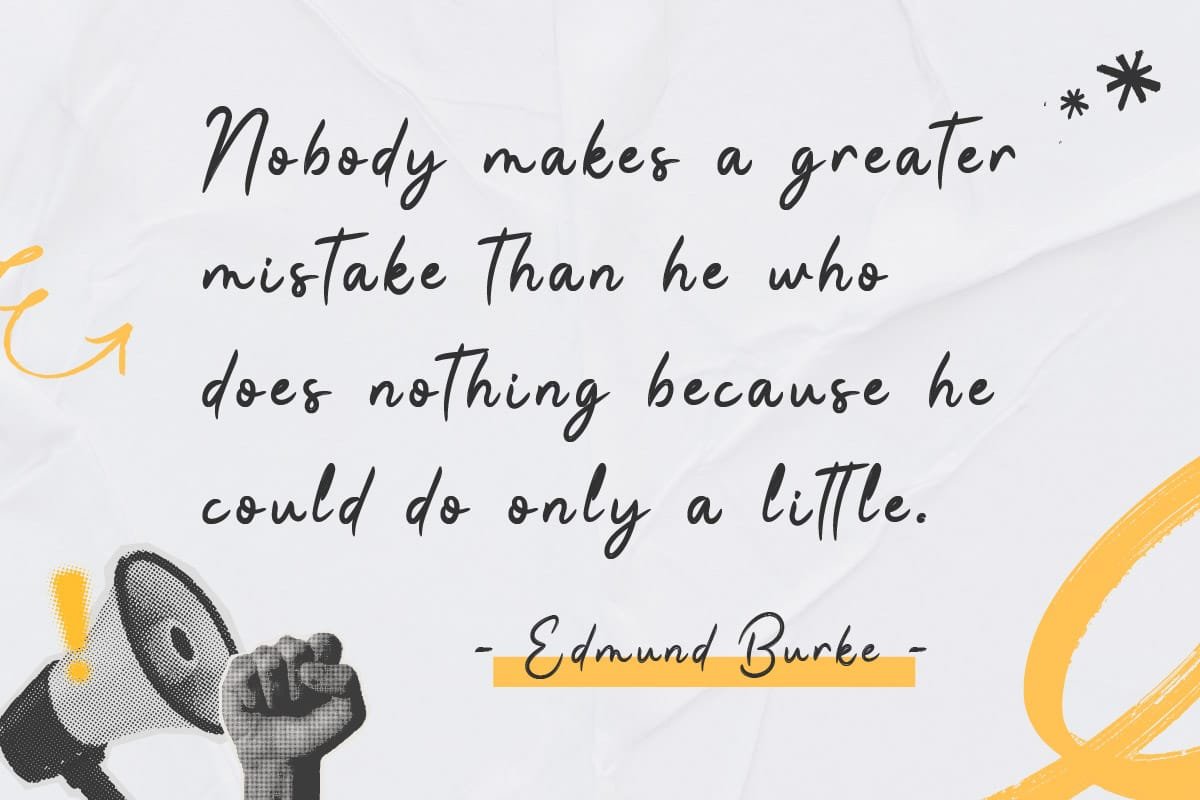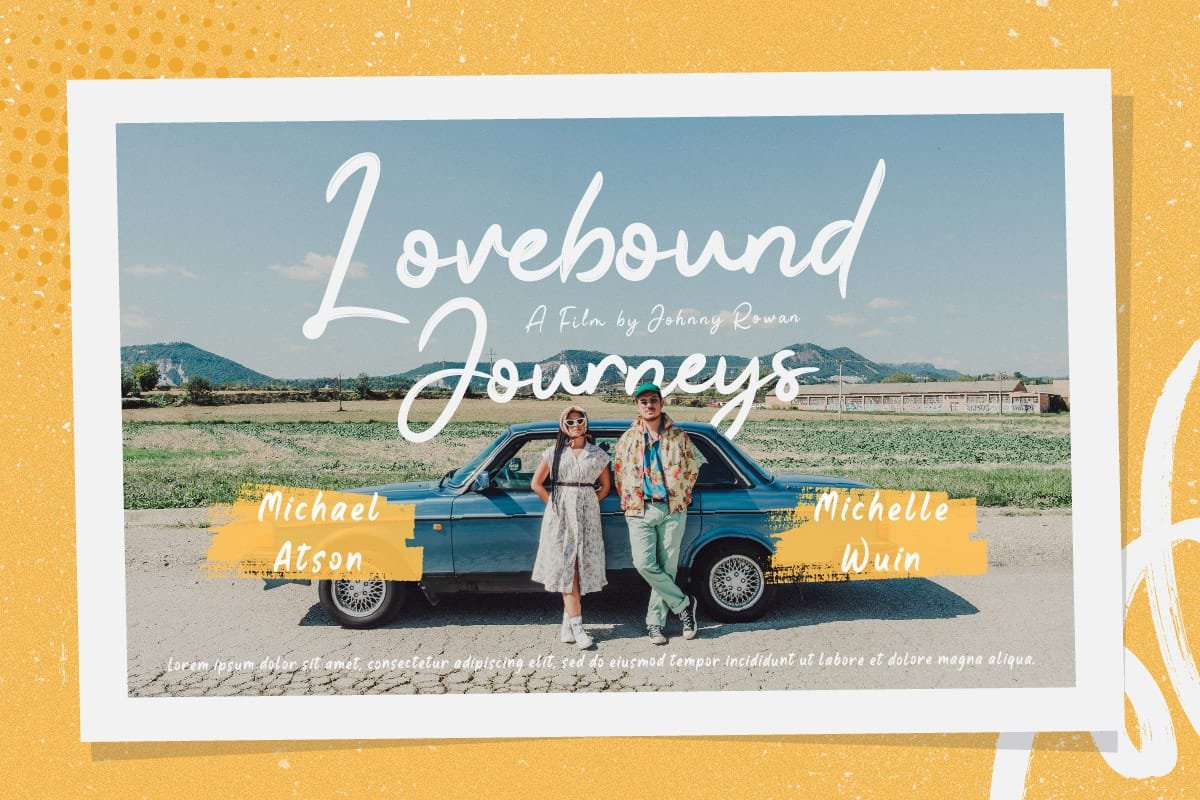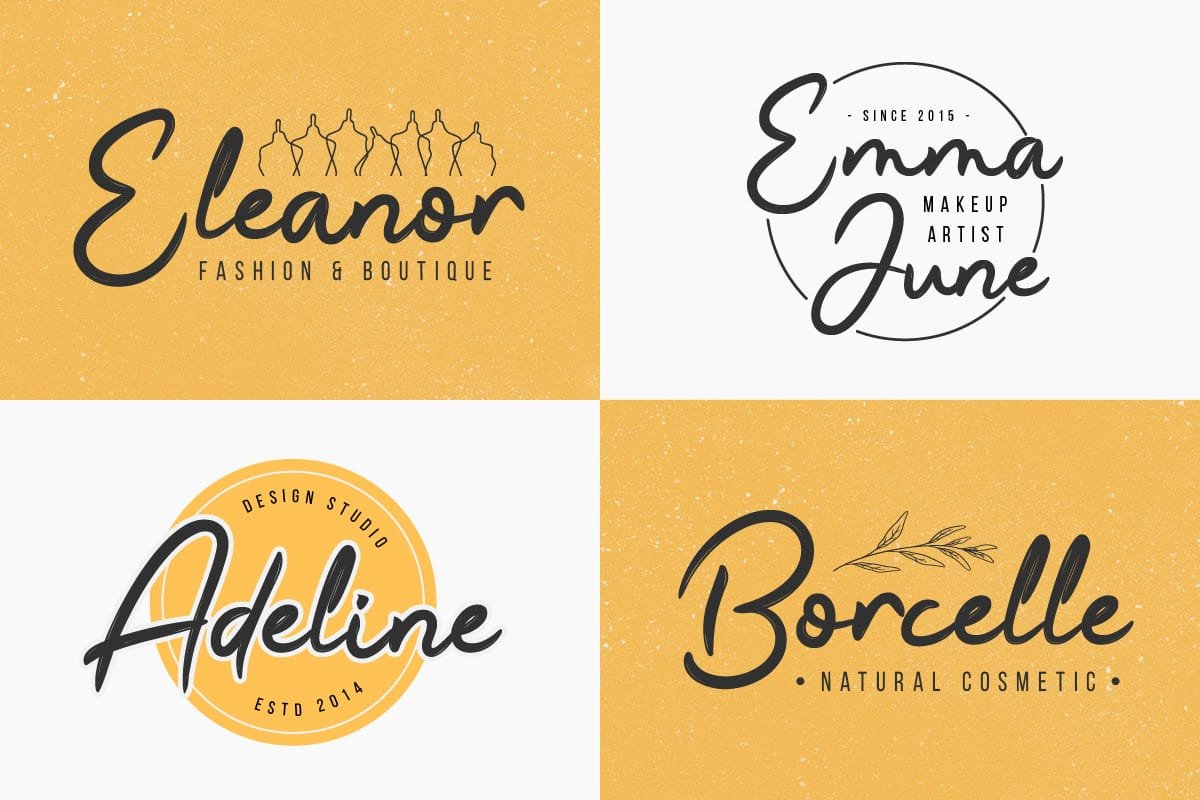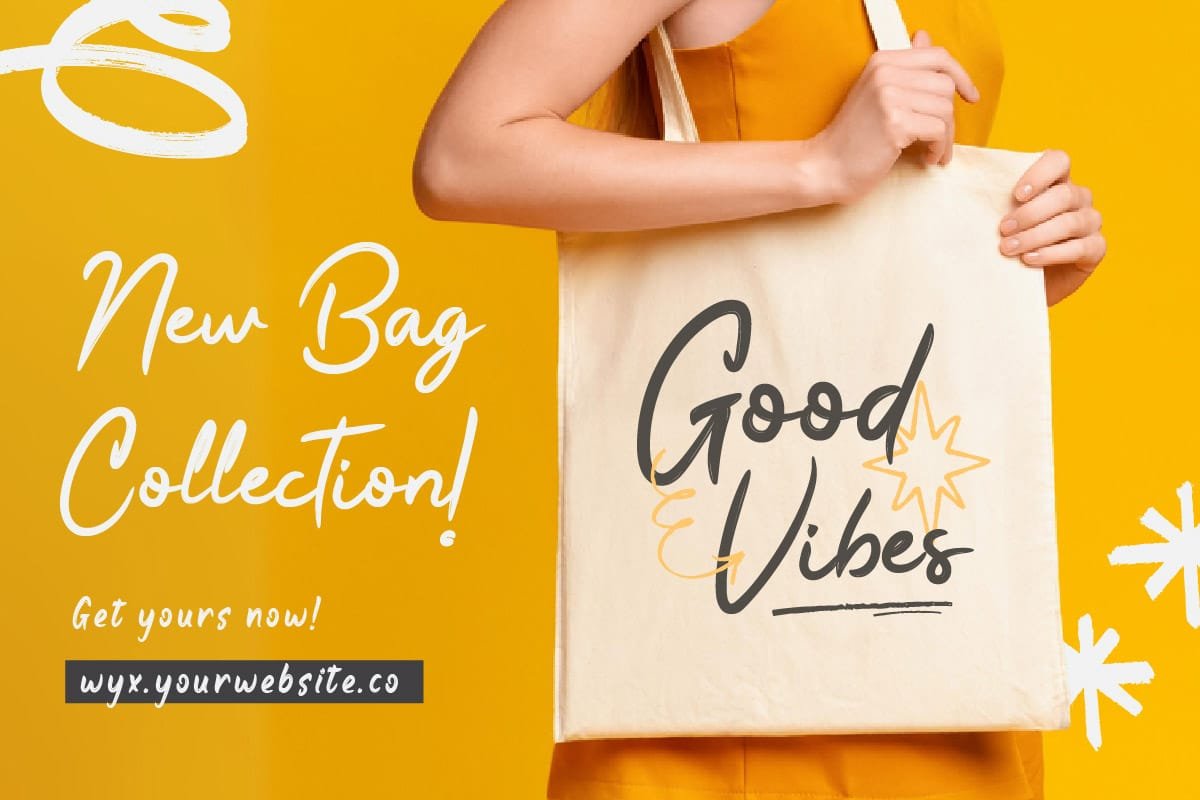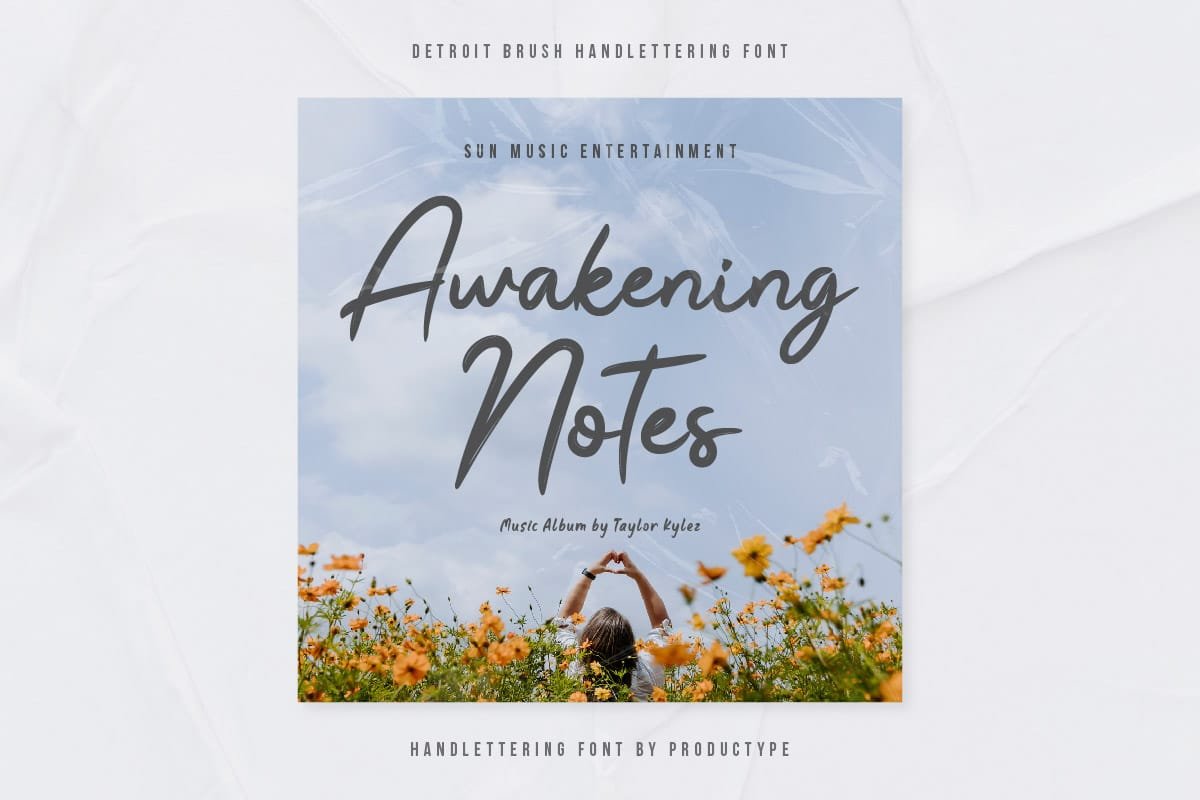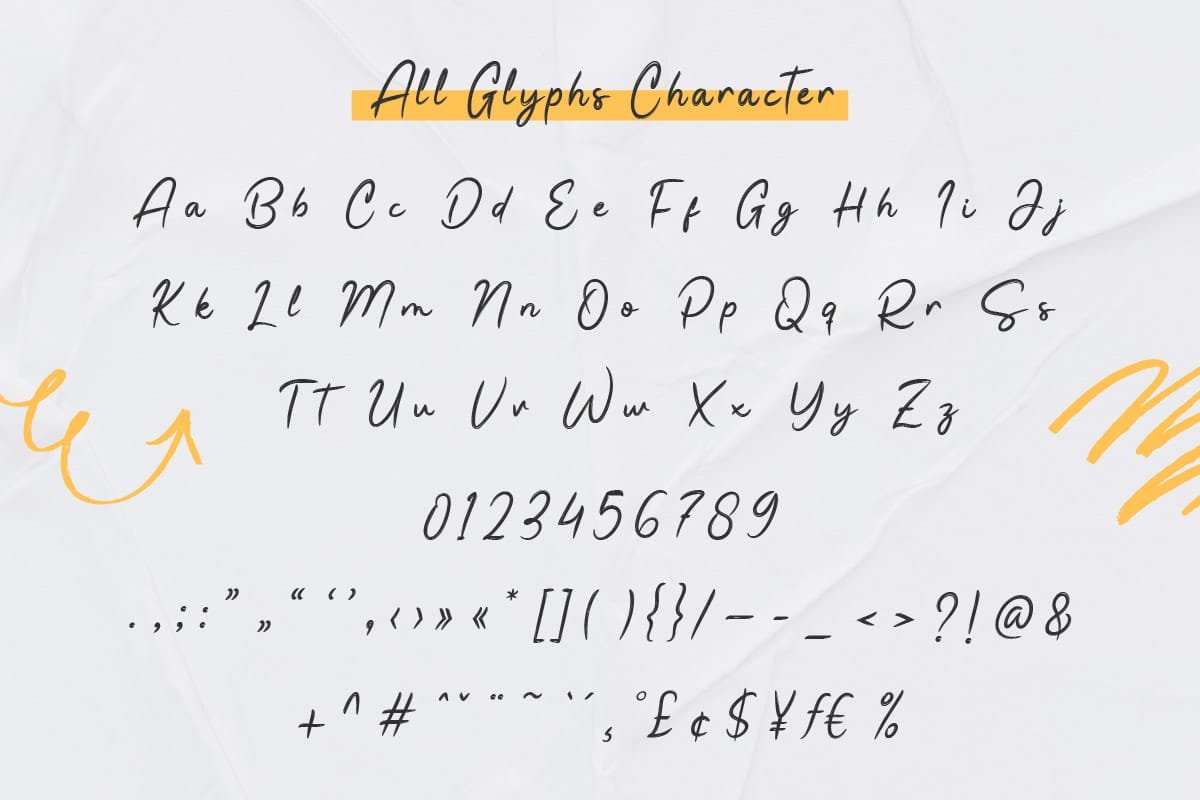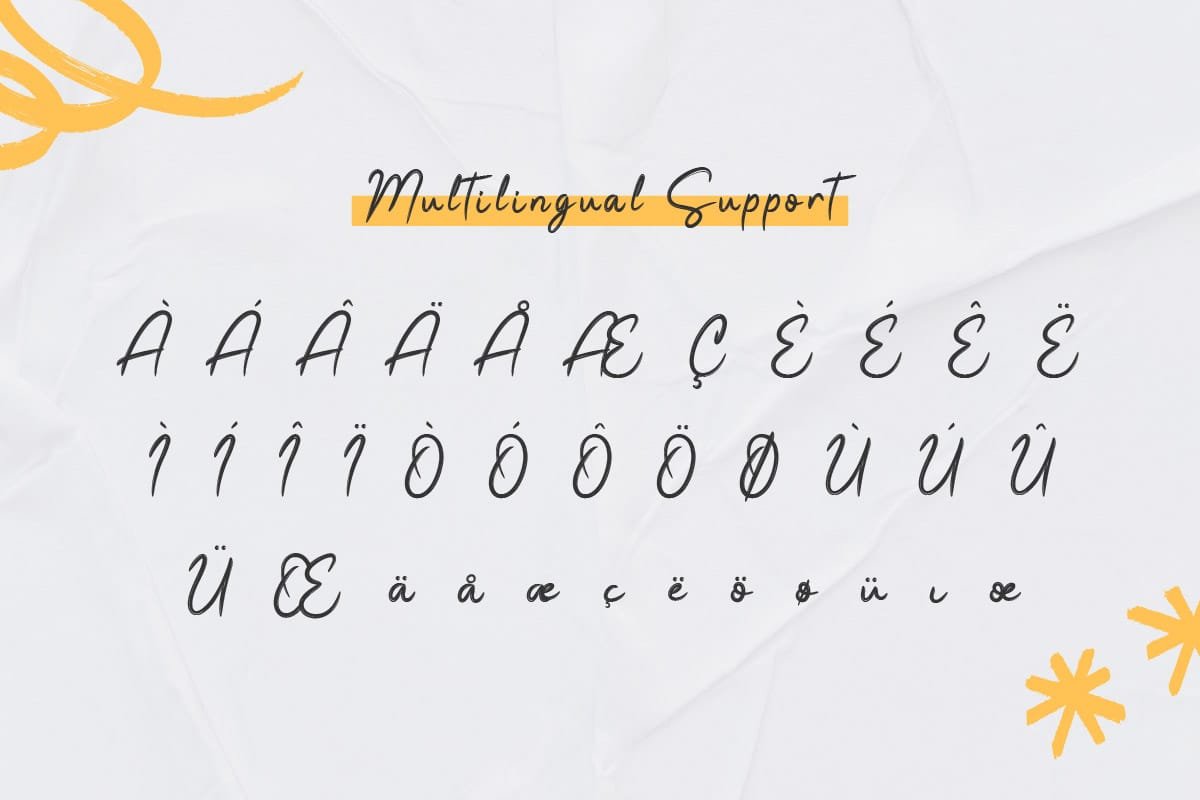
Detroid – Brush Handwritten Font
Embrace the spirit of adventure with Detroid – Brush Handwritten Font. Inspired by rugged landscapes and daring exploits, this font captures the essence of exploration with its bold strokes and adventurous design. Perfect for projects that seek to evoke a sense of excitement and courage, Detroid is ideal for designing bold travel posters, rugged outdoor branding, or adventurous social media graphics. With Detroid, every design becomes a call to action, inspiring you to break free from the ordinary and embark on an epic journey of discovery. Get ready to blaze new trails and conquer new horizons with Detroid – the font that’s always ready for an expedition!